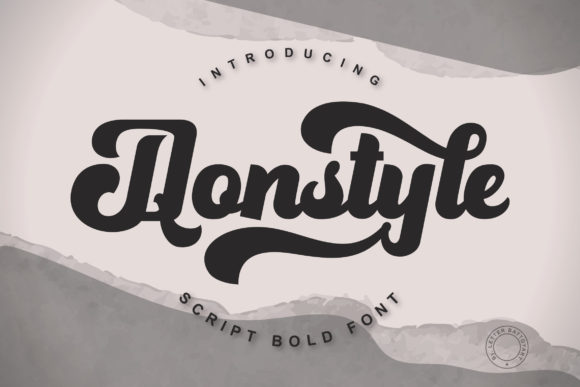
Feast your eyes on Qonstyle, a script font that's nothing short of a visual masterpiece. Its bold and enchanting strokes will elevate your designs, adding a touch of elegance and sophistication that's sure to captivate audiences. Whether you're creating logos, invitations, or social media posts, Qonstyle is your ticket to making a lasting impression.
With its effortless readability and graceful curves, Qonstyle is the perfect font for bringing scripts to life. Imagine your words dancing across the page, captivating readers with their charm and eloquence. Qonstyle's carefully crafted characters ensure that every letter, every word, every sentence shines with clarity and precision.
But Qonstyle isn't just a pretty face. It's also incredibly versatile, lending its charm to a wide range of projects, from branding and marketing materials to website designs and social media graphics. Its timeless appeal makes it a favorite among designers, bloggers, and creative professionals who demand the best.
Unleash your creativity and let Qonstyle guide you towards design excellence. Experience the joy of creating captivating headlines, eye-catching logos, and unforgettable branding with a font that truly stands out. Join the ranks of those who appreciate the finer things in life and elevate your projects with Qonstyle, the script font that will make your designs sing.